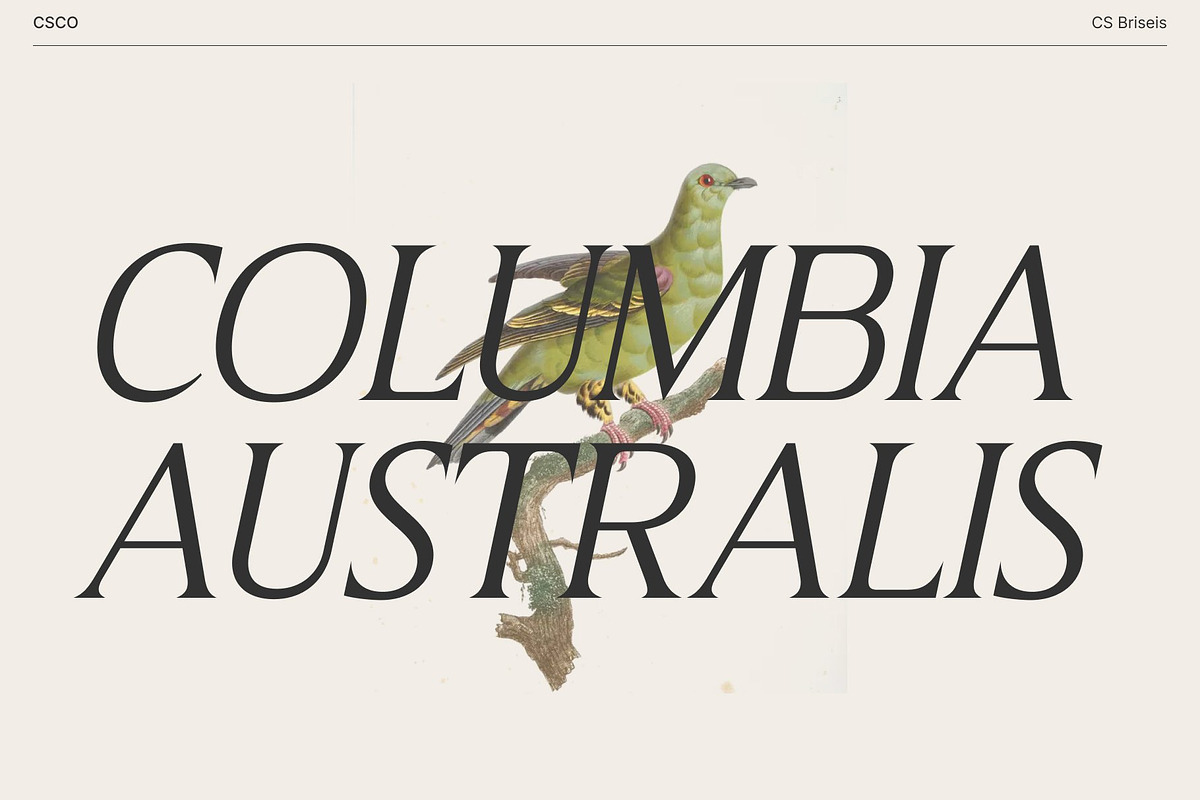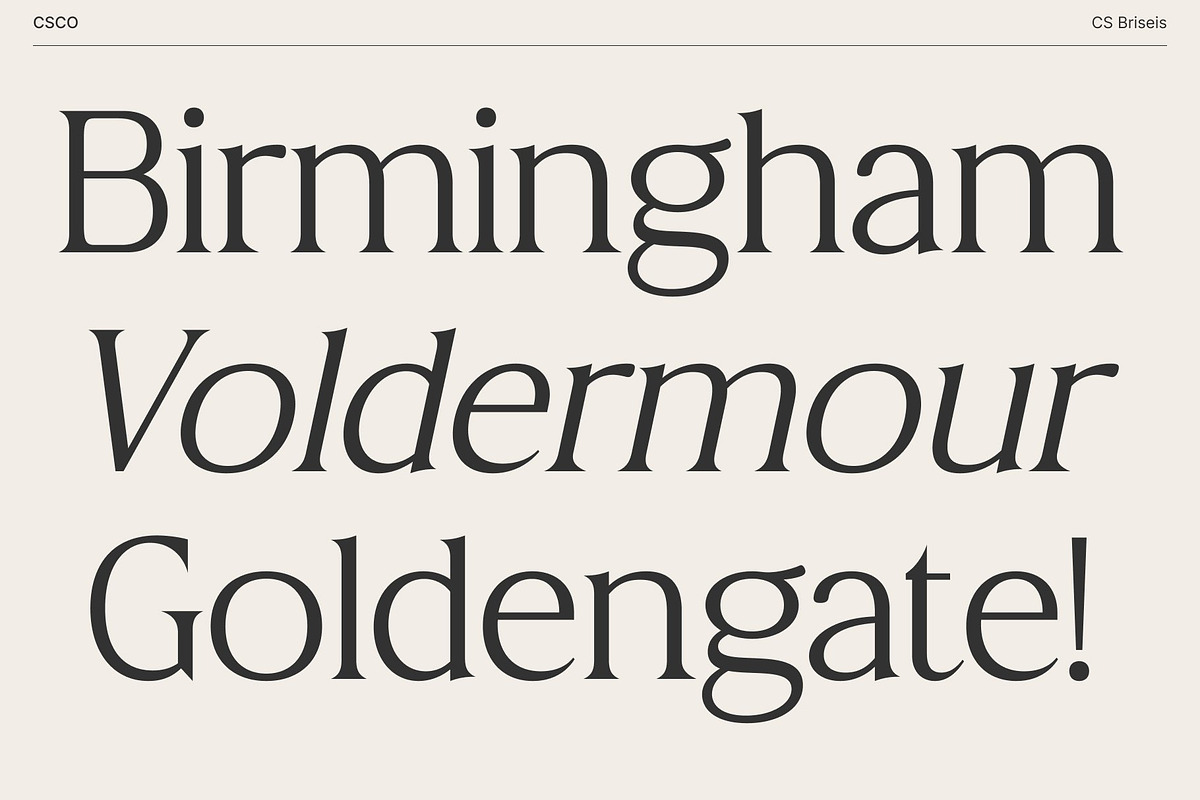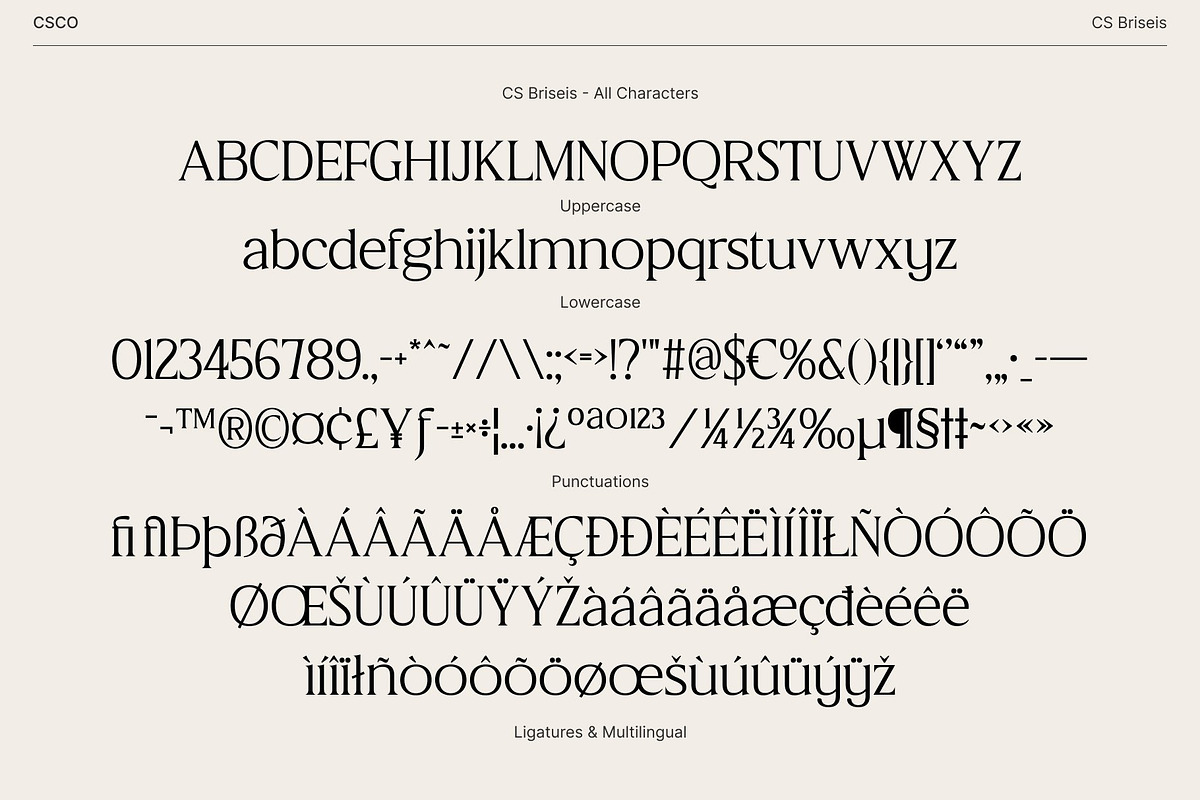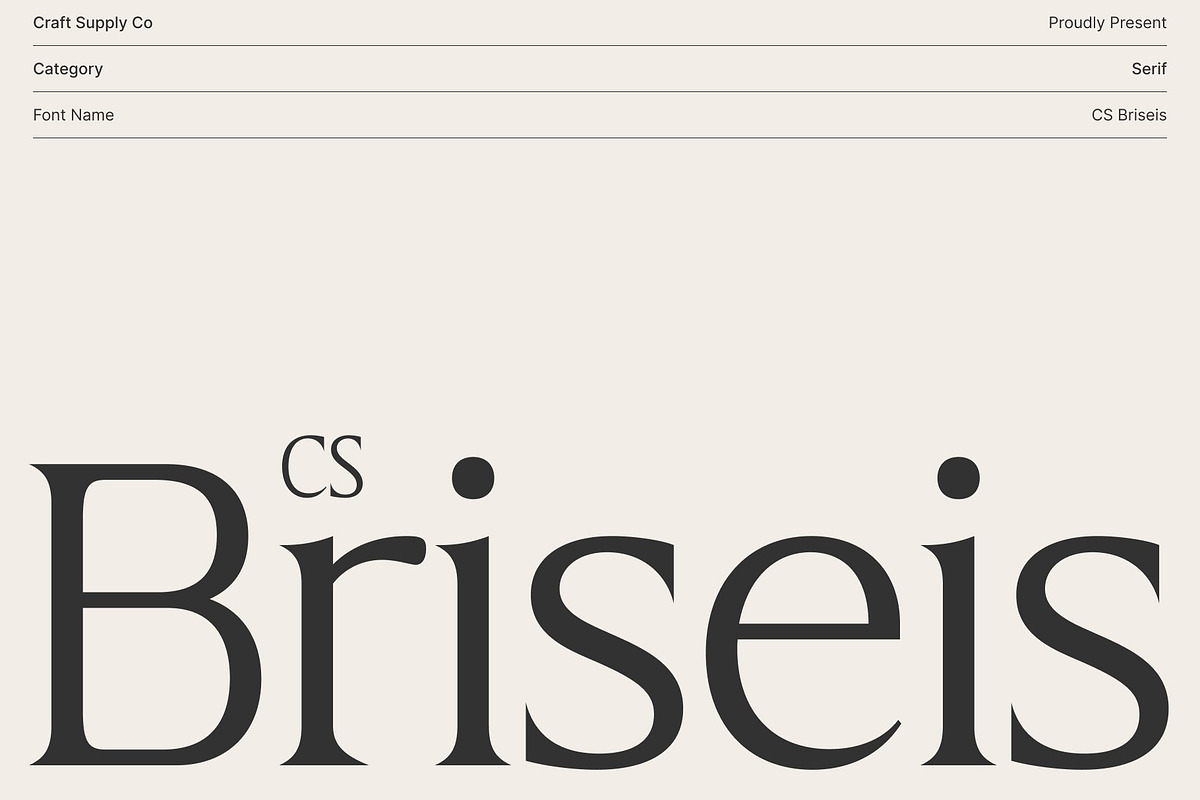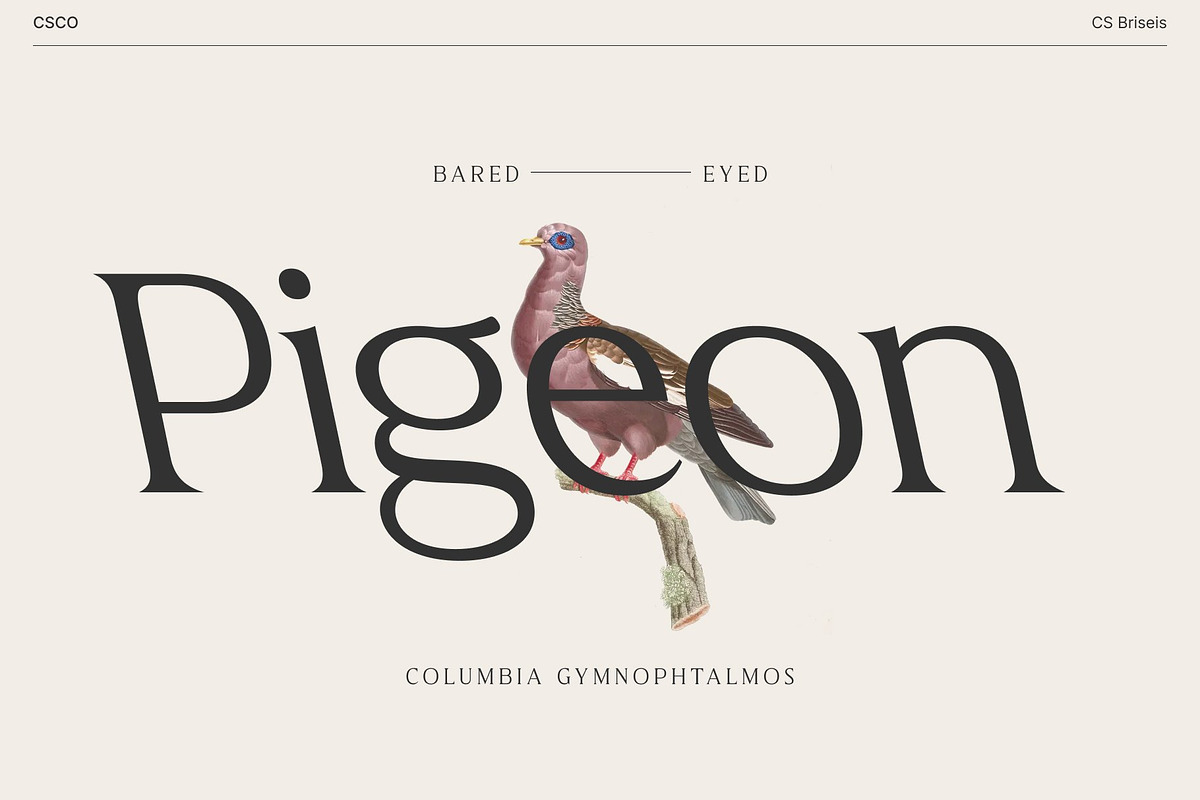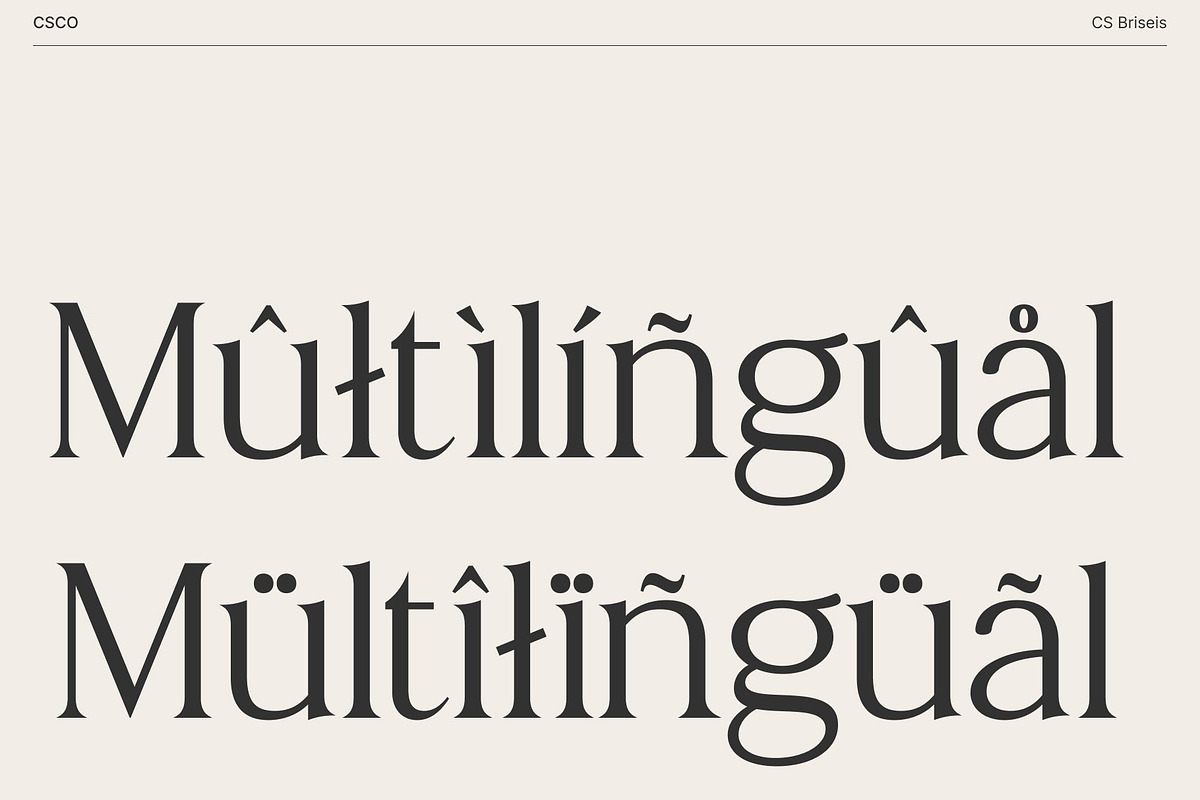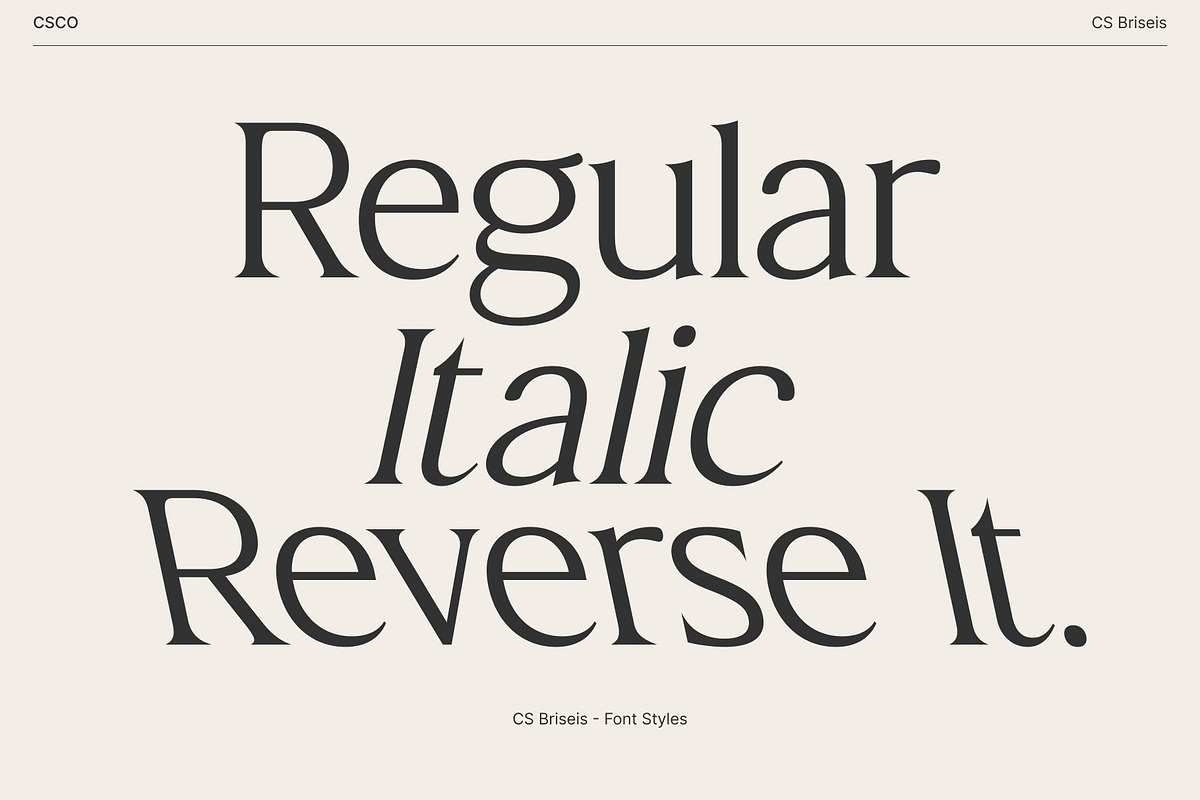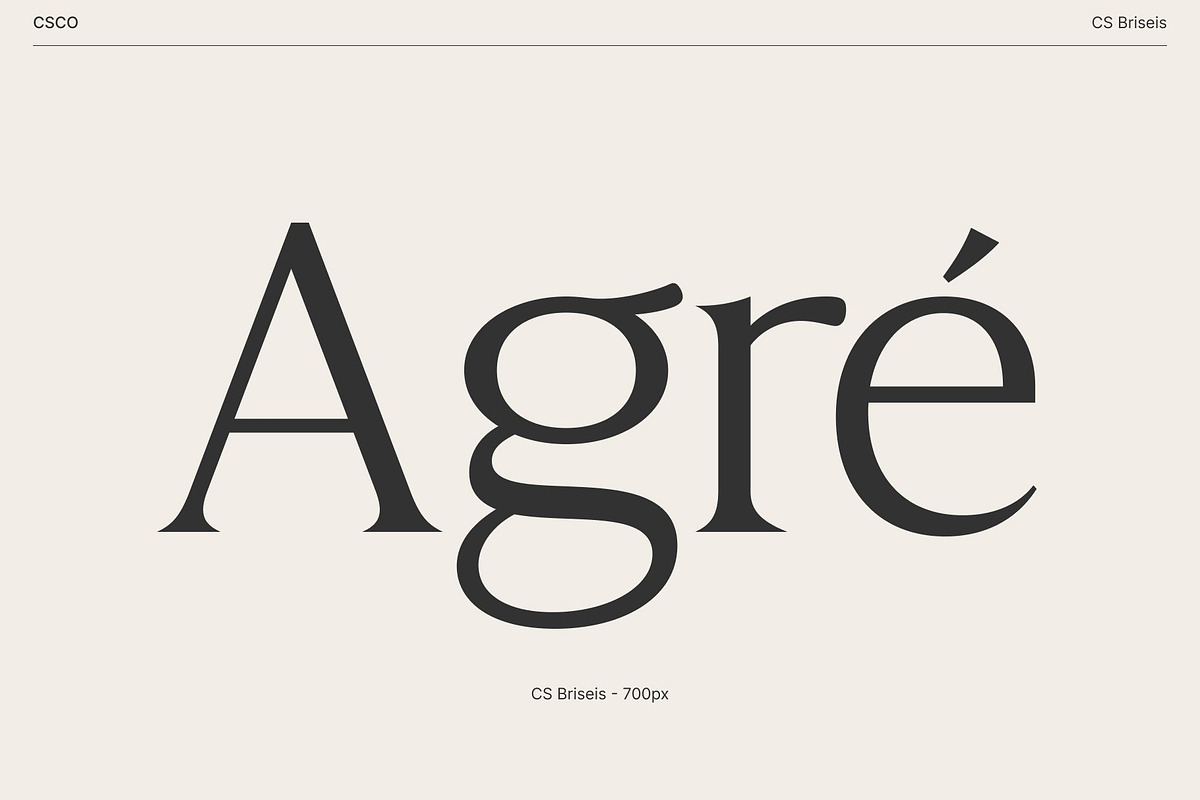
CS Briseis – Luxury Serif Font
CS Briseis – Refined Elegance for Modern Luxury
Luxury Serif with Timeless Sophistication This is a luxury serif font defined by its refined curves and elegant structure. Designed with precision and grace, it embodies timeless beauty while maintaining a modern edge. Each character carries a sense of balance and flow, making it ideal for projects that demand sophistication and visual harmony.
Refined Curves and Clean Structure Every detail in this font is crafted to express clarity and class. The clean lines and smooth serifs lend a graceful rhythm to the text, ensuring readability while exuding luxury. Its polished forms create a sense of calm elegance, making it a versatile choice for premium editorial layouts, high-end product packaging, or branding that values understated refinement.
Perfect for Editorials, Branding, and Packaging From book covers to luxury branding, this font shines in projects that require both professionalism and allure. Its elegant proportions bring a sophisticated tone to any visual composition, perfectly complementing modern minimalist aesthetics or classic high-end design concepts.
A Timeless Typeface for Modern Designers This font blends the charm of traditional serif typography with the sleekness of modern design. Its refined character and versatile application make it the perfect choice for designers seeking to create visuals that feel luxurious, intelligent, and eternally stylish.
- CS Briseis Regular
- CS Briseis Italic
- CS Briseis Reverse Italic